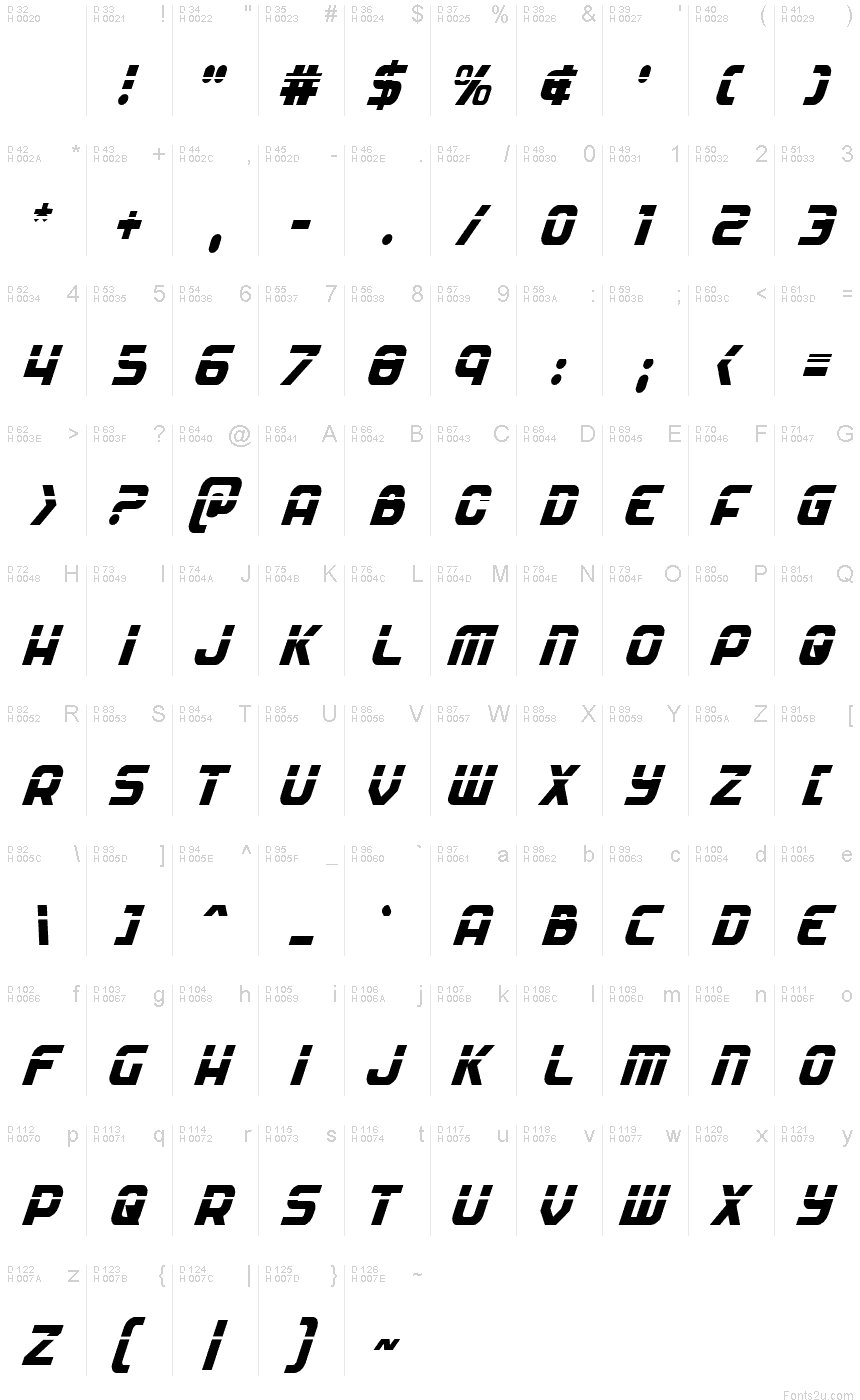
Soldier Laser Condensed Italic by Daniel Zadorozny of Iconian Fonts is a free futuristic display font with a hard forward slant and heavy strokes. A continuous horizontal cut slices through the lettering, and rounded joins meet sharp diagonal endings.
As a title treatment, it turns type into a fast, machine-like stripe. That aggressive profile suits esports branding, action-game graphics, and motorsport merchandise. The repeated cut line can echo laser beams or racing lanes in posters and event signage, so the lettering becomes part of the surrounding graphic theme.
Soldier Laser Condensed Italic
Condensed Italic